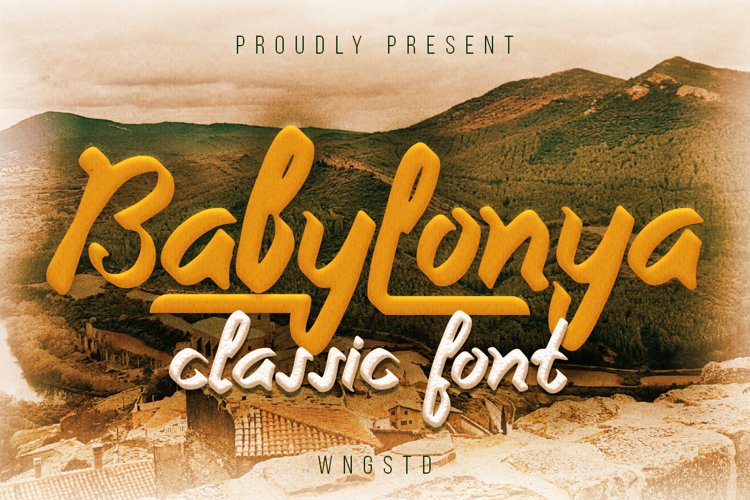
Babylonya is a gorgeous and cursive paint brush handwritten font, crafted to give your headlines and logotype projects a stylish touch. This font reads as strong, confident, and dynamic and can add tons of nostalgic character to your designs.